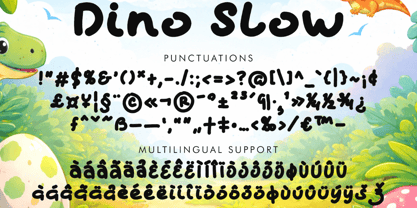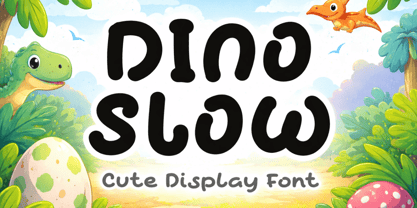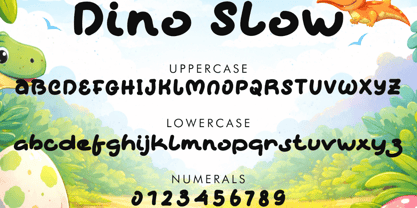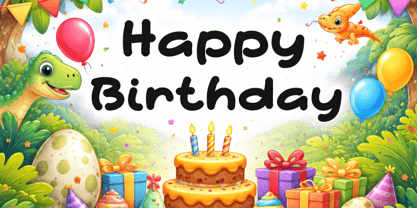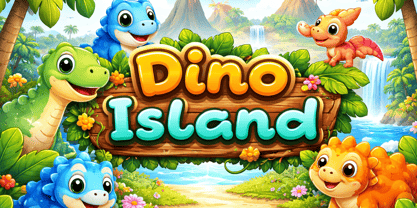
Dino Slow
by Yoga Letter
The Dino Slow Font Family was designed by Isroni Yoga Prasetya and published by Yoga Letter. Dino Slow contains 1 styles. More about this family
"Dino Slow" is a unique and cute display font. It features uppercase and lowercase letters, numerals, punctuations, and multilingual support. It's perfect for Easter, summer, holidays, Teacher's Day, Mother's Day, print, banners, branding, stickers, vacations, logos, Christmas, funny text, bunny, rabbit, cartoons, comics, dinosaur, print, and more.
Designers: Isroni Yoga Prasetya
Foundry: Yoga Letter